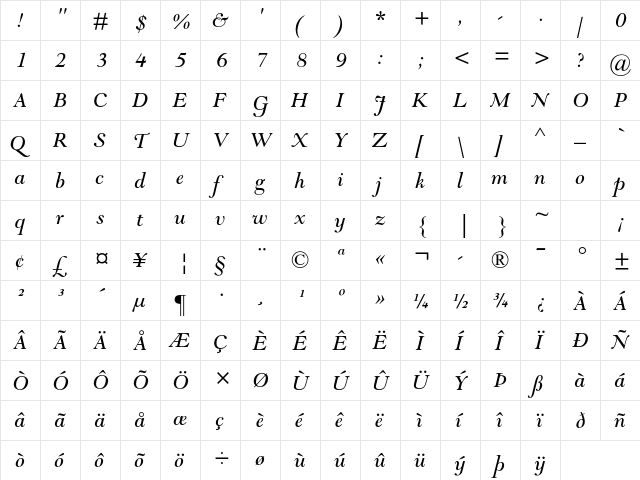
Goudy Modern MT Std Italic Font Preview
Goudy Modern MT Std Italic
Goudy Modern MT Std Italic Font Details
| Designer | Frederic W. Goudy |
Design Context for Goudy Modern MT Std Typeface
Goudy Modern MT Std takes a measured approach to typography — its balanced proportions and neutral character make it a reliable workhorse for both digital and print work. The slanted form adds forward momentum and visual energy.
Pro Tip: Use Goudy Modern MT Std for emphasis, pull quotes, and subheadings where its slanted energy can add rhythm to the layout.